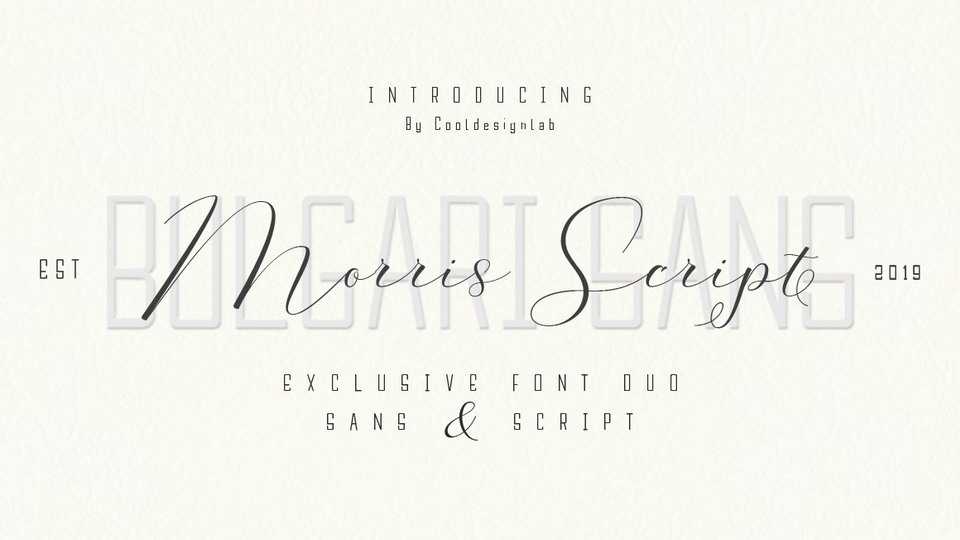
Download Morris Script font, a gourgeous modern calligraphy typeface with an elegant style and fancy flow. Great for wedding design, feminine logos and branding, magazines, social media, cards, letters and more.
Designer: Cooldesignlab